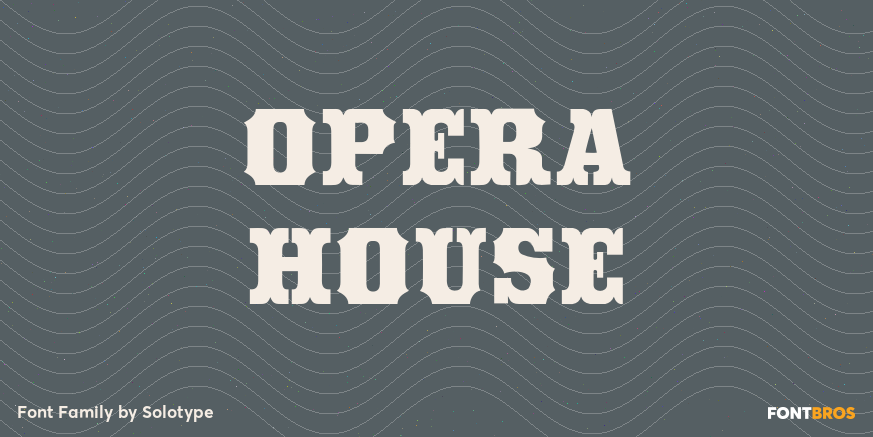
HomeFont BrosHistoricalOpera House HistoricalSpecial Effect Opera House FacebookXPinterestWhatsApp 1 of 1 About Opera House This is a fake and a fraud and not a bad-looking type. We did this to imitate the look of an old wood poster font, but it is completely new. Don\’t tell anyone. Please note: no lowercase.  DOWNLOAD NOW People also explored Sheylendra Font The Foottes to Font From the Stars Delish Font Avocado Font Nouel Valey Font Bonandito Thing Duo Font Starlla Font Bingo Butterfly 274 0 TagsOpera House Font Previous articleVine MonogramsNext articleWalden LEAVE A REPLY Cancel reply Comment: Please enter your comment! Name:* Please enter your name here Email:* You have entered an incorrect email address! Please enter your email address here Website: Save my name, email, and website in this browser for the next time I comment. Personal Use Free Equestrain Personal Use Free Read more about this font Choco Shake Font Personal Use Free Read more about this font Machine House Personal Use Free Read more about this font Covelia Personal Use Free Read more about this font BLOG 5 Fonts That Will Dominate Design Trends in 2026 5 Fonts for 2026 That Will Dominate Design Trends Typography plays a critical role in visual communication, and as we look ahead to 2026, it’s... Where to Buy American Fonts Online in 2024 The 10 Best Handwriting Fonts to Add Personality to Your Designs How to Cut Any Font on Cricut: Convert a Font to SVG (Free)